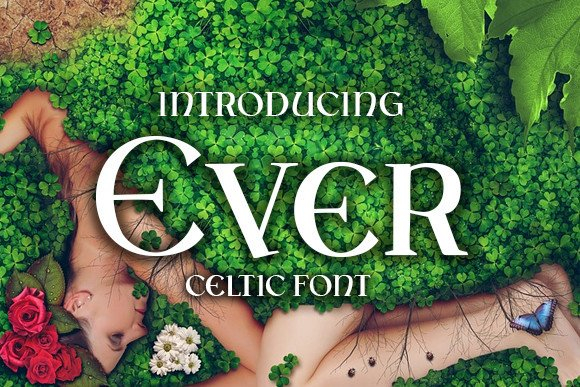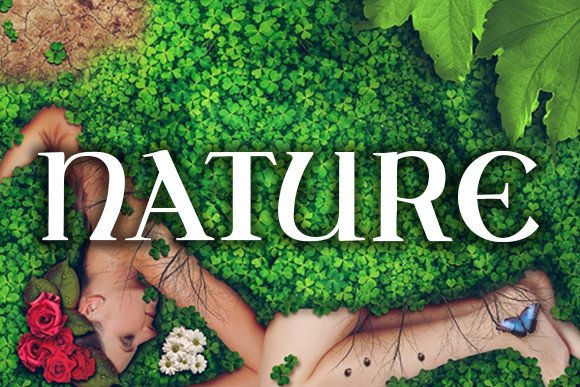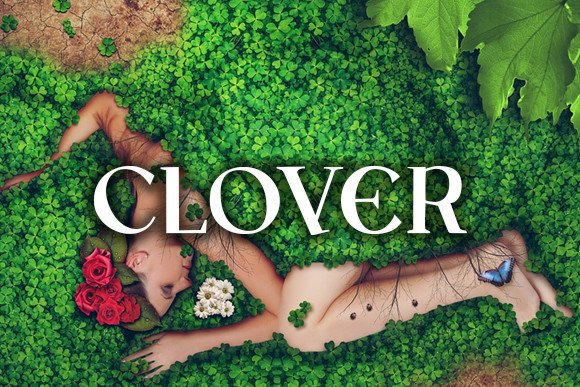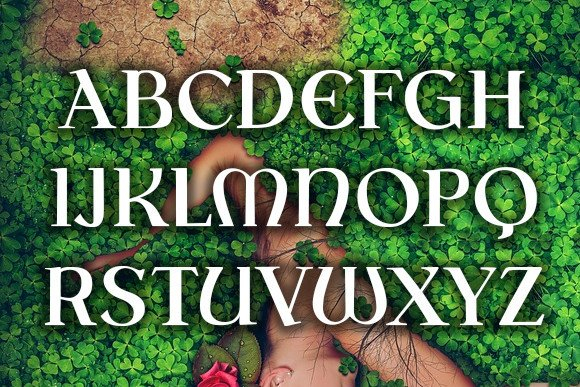
Ever Font
About Ever Font
Ever is a magical Celtic typeface with elegant curves and stylish serifs. This unique blackletter typeface will definitely immerse your designs into a mystical, fantasy world!